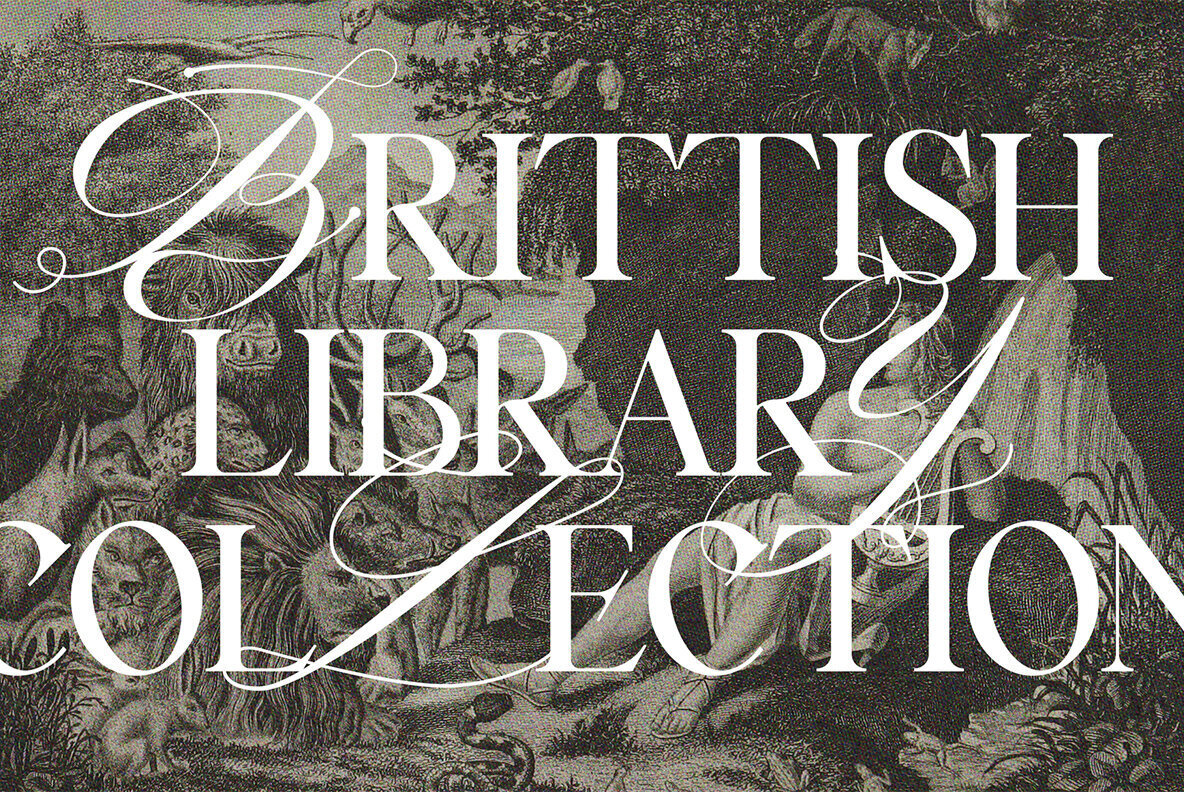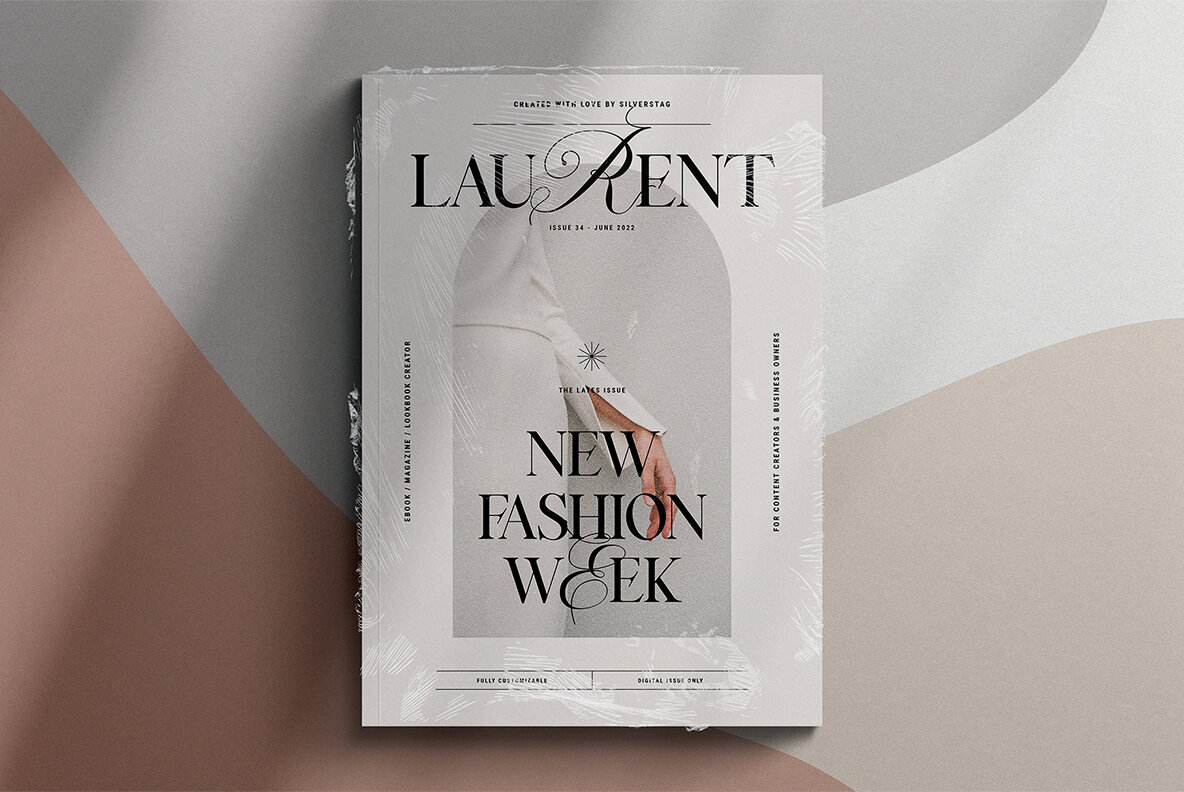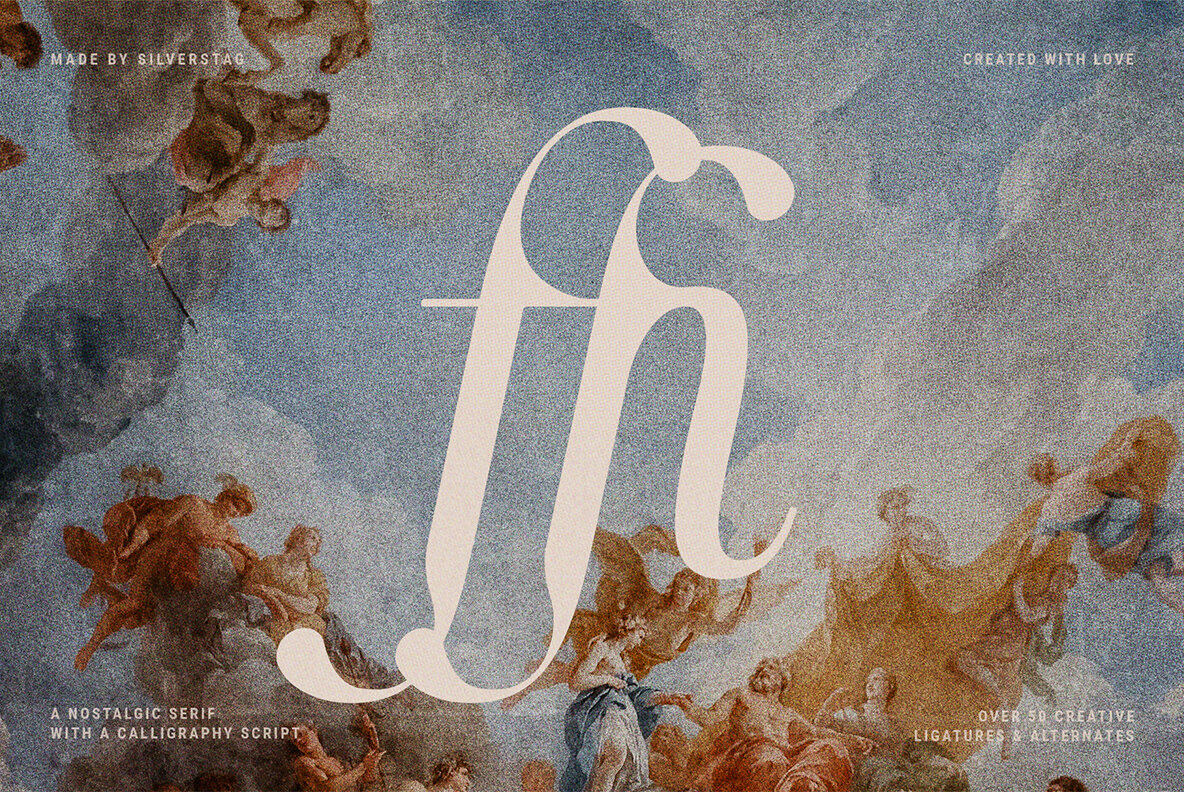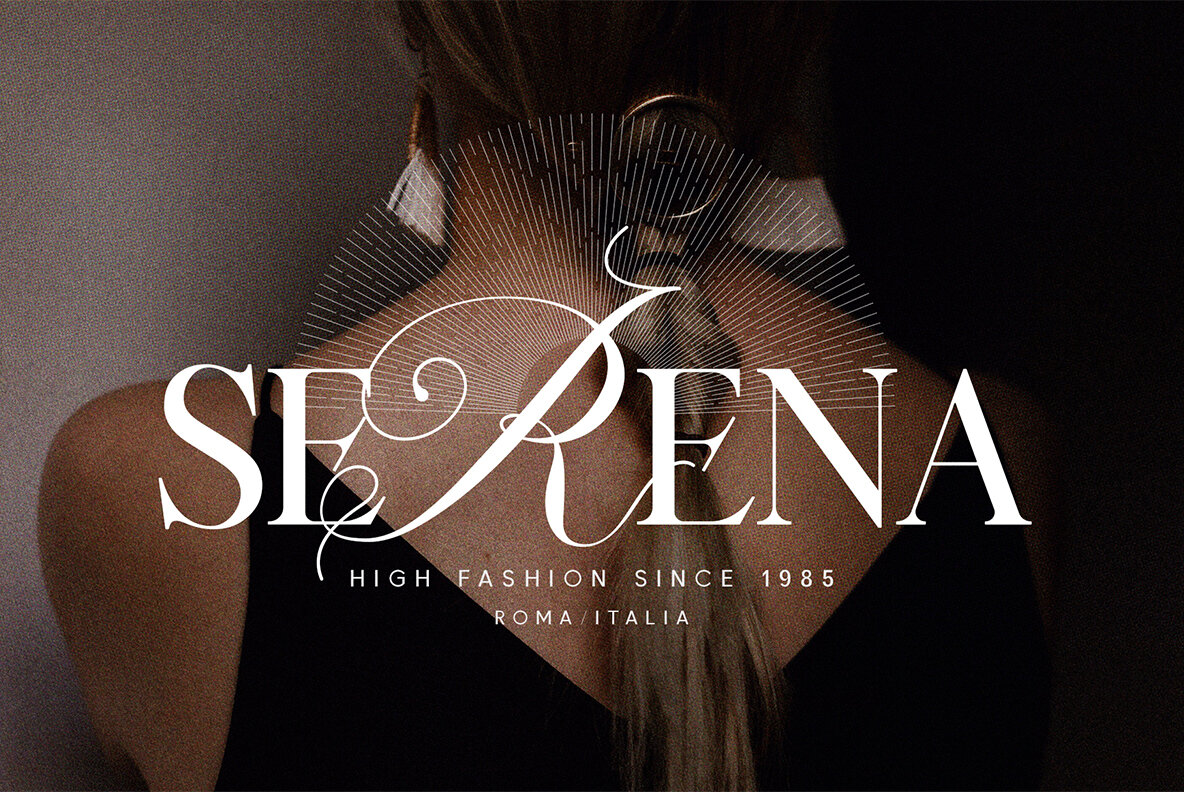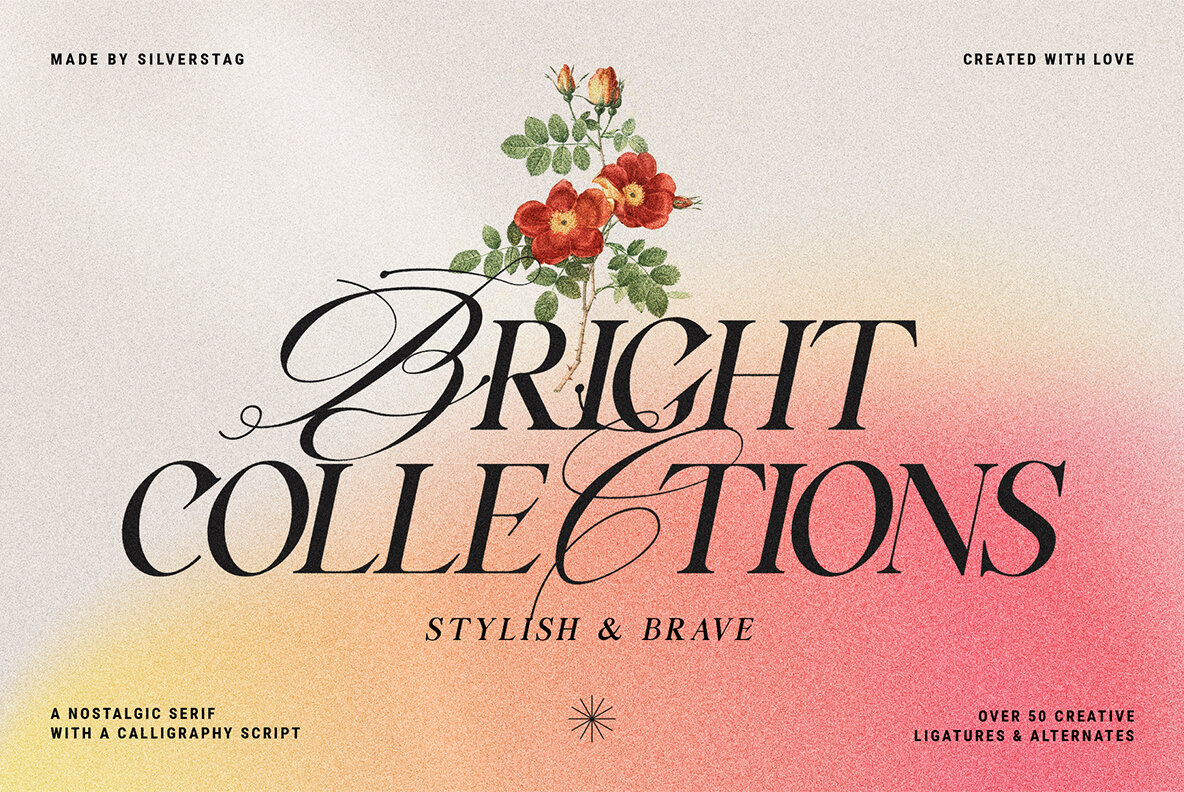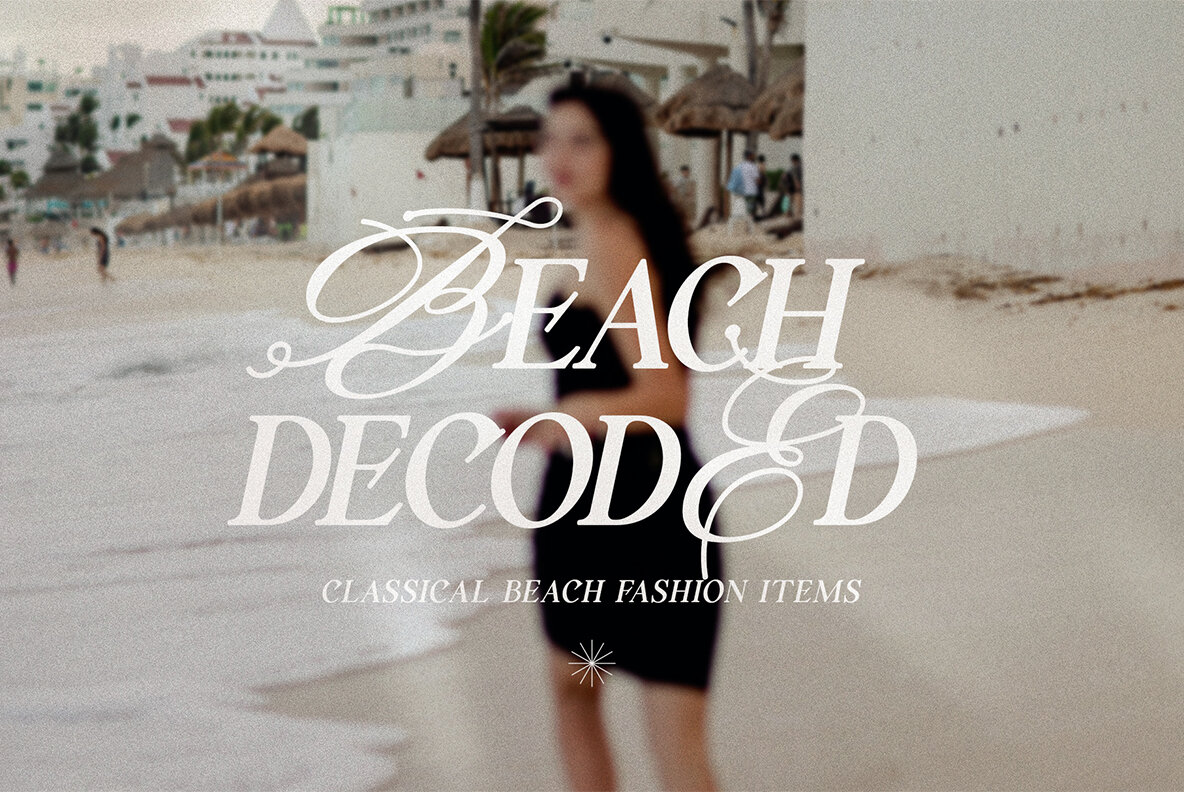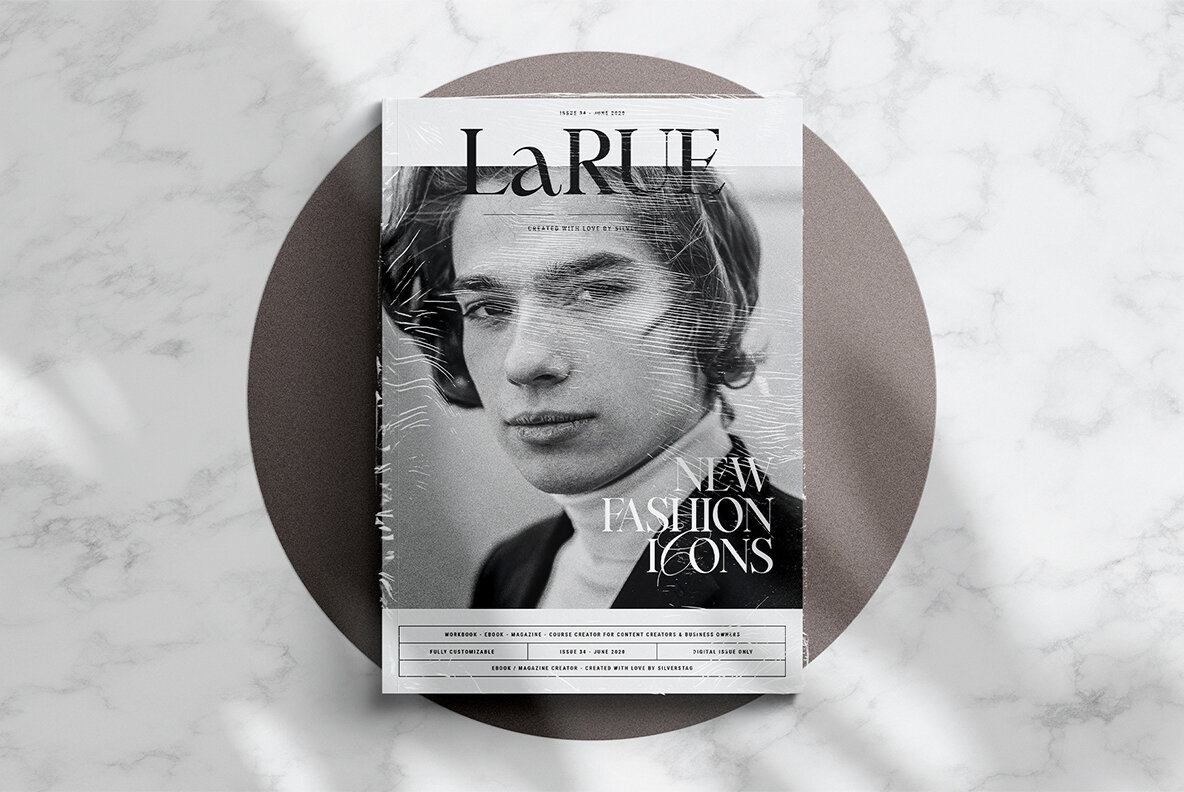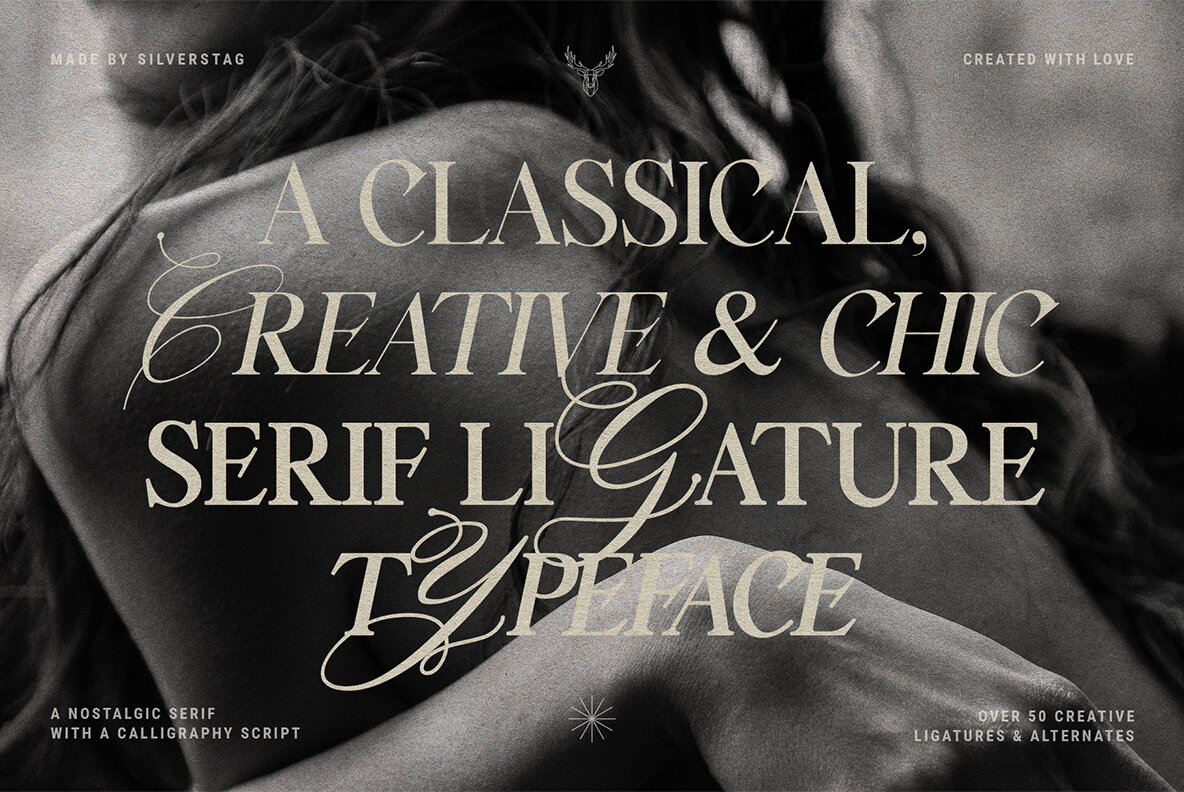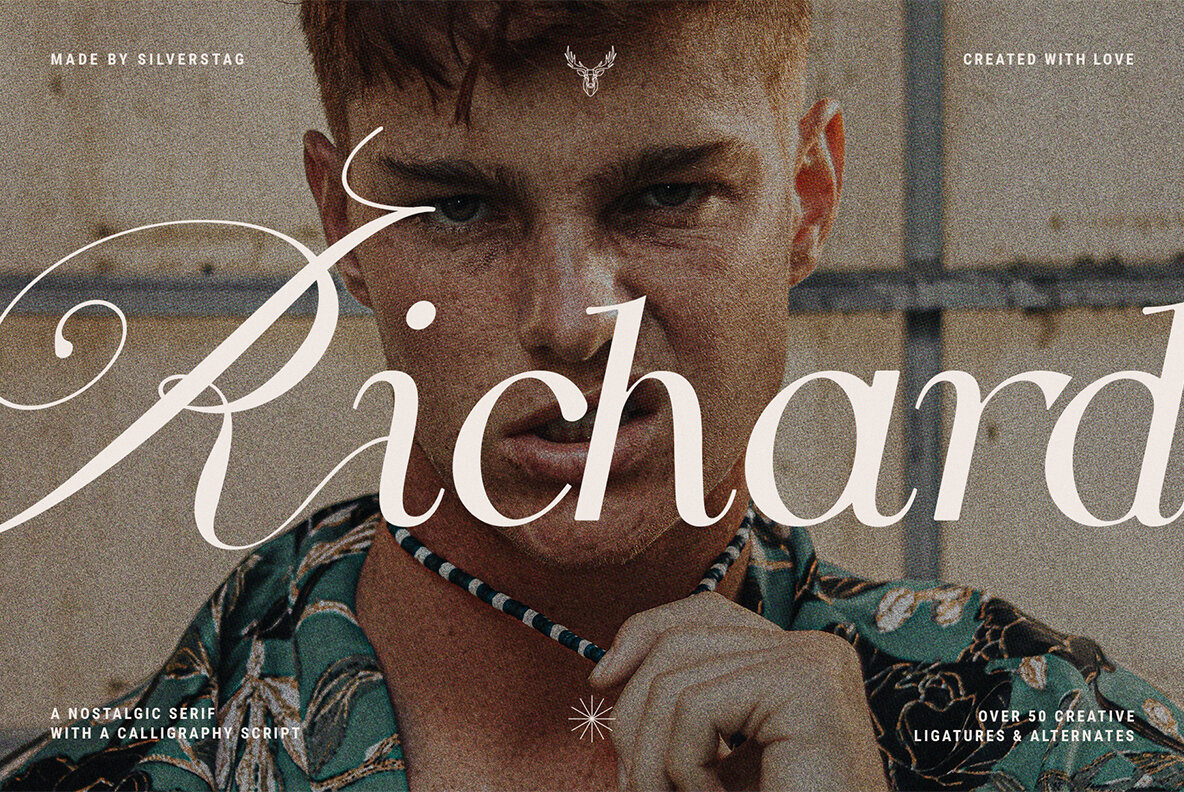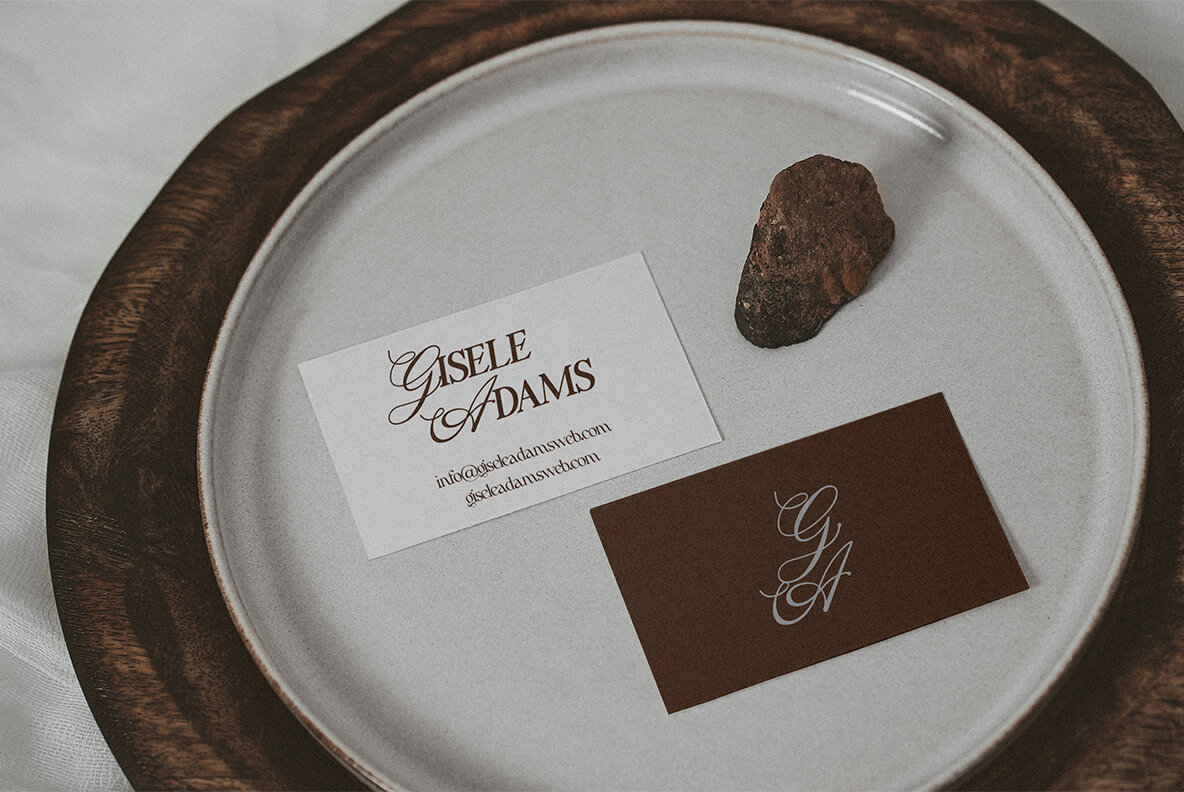
Silver Garden Font
Silver Garden Regular
Silver Garden Italic
Silver Garden Bold
Silver Garden Bold Italic
Silver Garden is a brand new, unique & nostalgic typeface I like so much that I wanted to make it super personal, so that is why the Silver is in the name. This font family includes 4 font options, regular, italic, bold and bold italic. The main font is a serif, which in regular and italic looks cool, chic & fashionably elegant, but in bold and bold italic it gets some additional curves so it's also nostalgic and vintage at the same time. Each font version comes with over 25 lowercase ligatures and a full set of uppercase script alternates. It also includes full language support, punctuation, numerals and detailed instructions how to use alternate letters most of the apps on your computer, as well as in Canva. I invite you to check out the preview images, and I hope you will be immersed in my vision for this creative typeface that, I am sure, will work for all kinds of interesting projects you might be working on this year. If you end up publishing your designs on Instagram, tag me - @silverstagco and I will make sure to showcase your design and work to my audience as well! Silver Garden - Nostalgic Font Duo Includes: SilverGarden.otf - Regular version of the font SilverGarden-Italic.otf - Italic version of the font SilverGarden-Bold.otf - Bold version of the font SilverGarden-BoldItalic.otf - Bold italic version of the font Each of these fonts includes all serif letters & uppercase alternate script options Numerals & Punctuation Language Support For Each Option - Regular, Italic, Bold & Bold Italic Happy creating everyone!